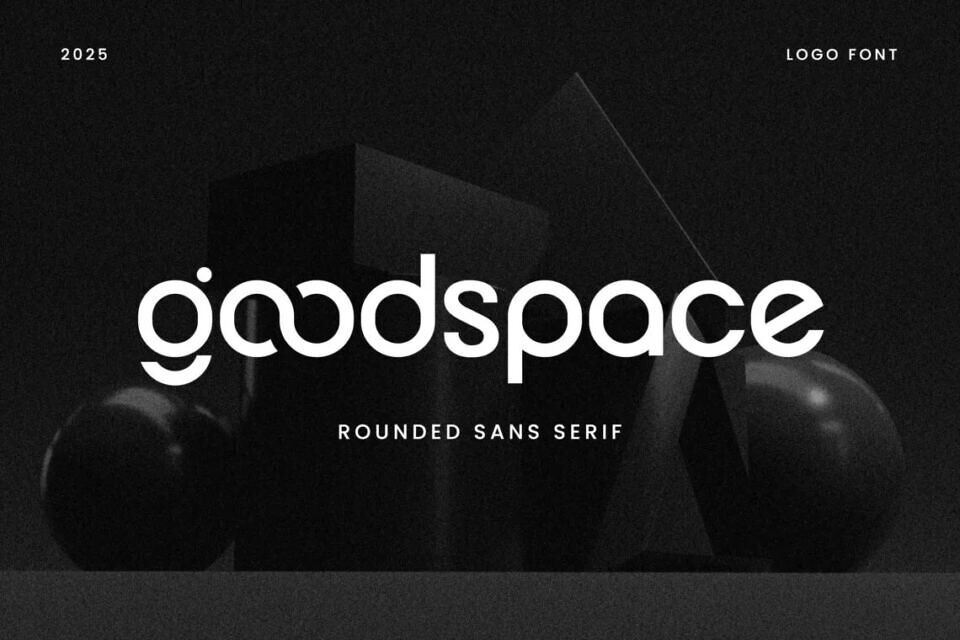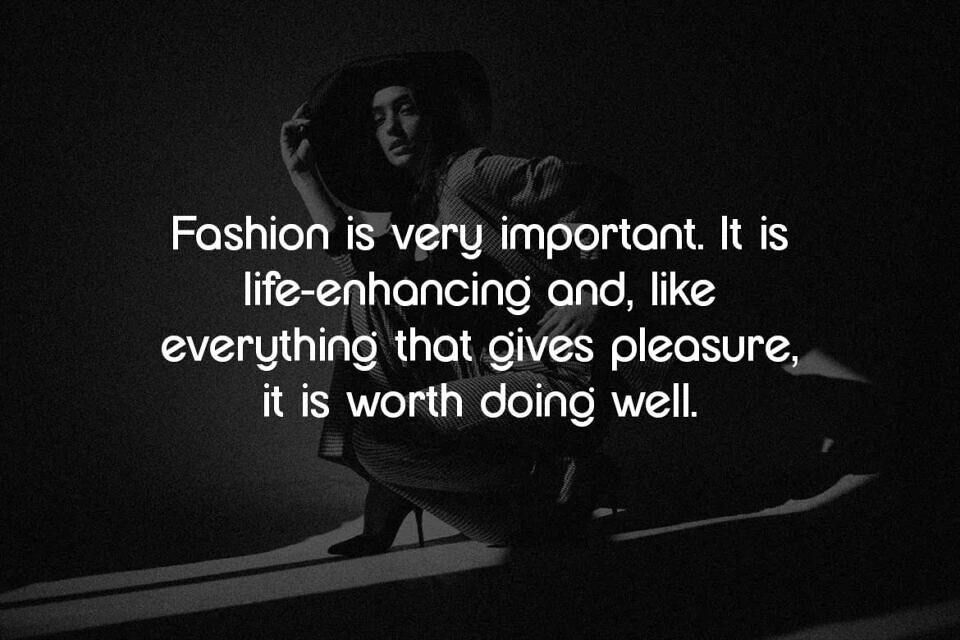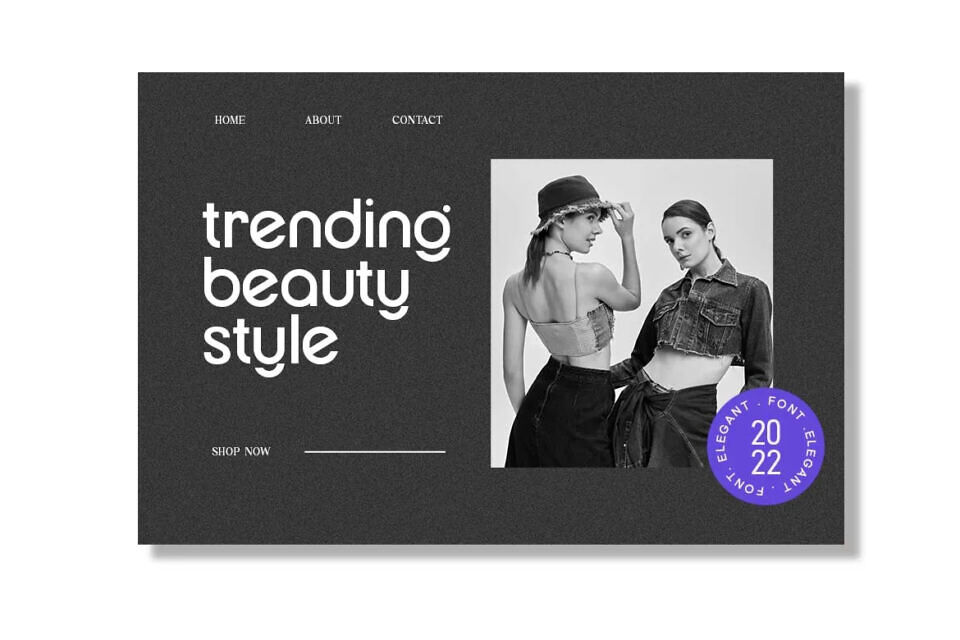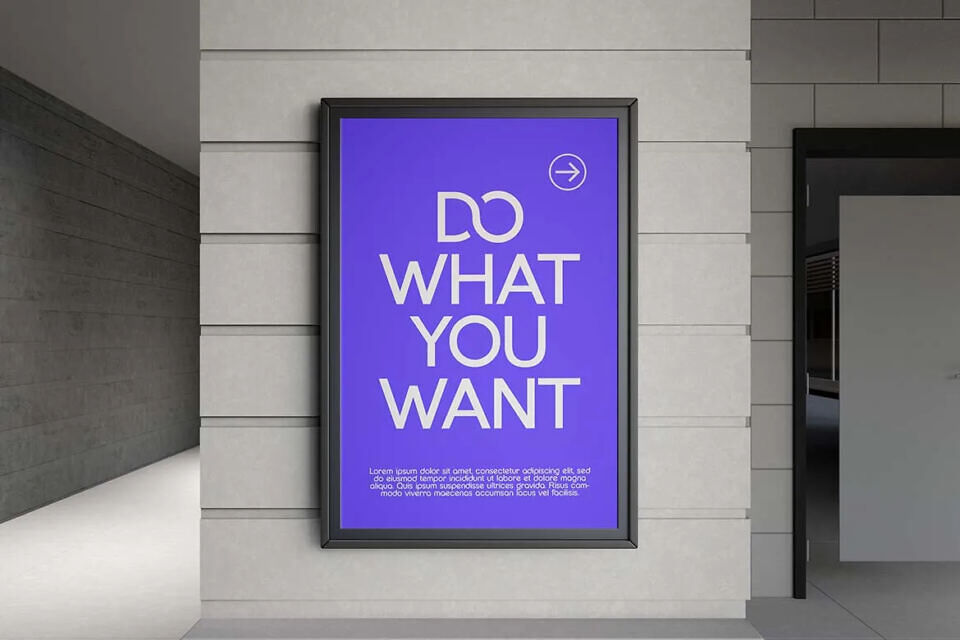
Goodspace Rounded Font
Goodspace Rounded Trendy Futuristic Font
Goodspace Rounded Trendy Futuristic Font is a modern sans-serif display font featuring smooth curves and softened edges that create a friendly, approachable look. Its clean geometric structure combined with rounded terminals delivers both elegance and readability, making it ideal for logos, branding, headlines, and editorial design.
With versatile character support and a balanced, stylish appearance, it works well across both masculine and feminine visual identities.
Designed by: GraphicSauce.co